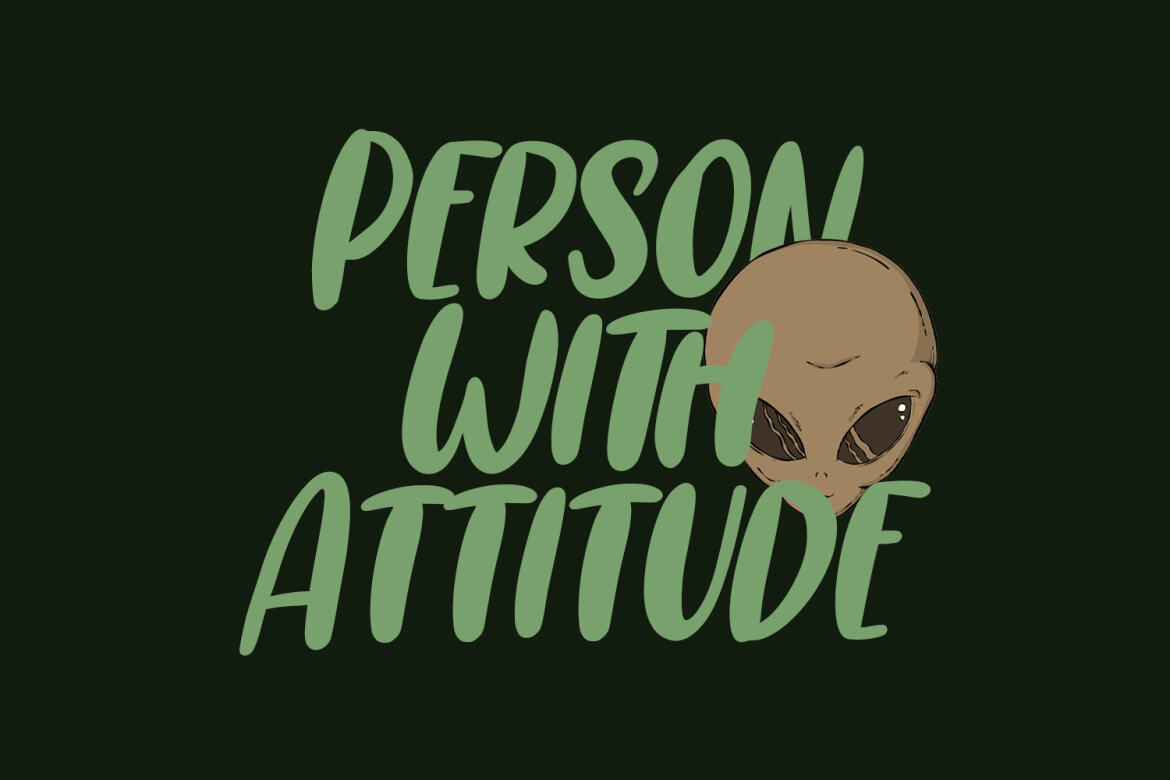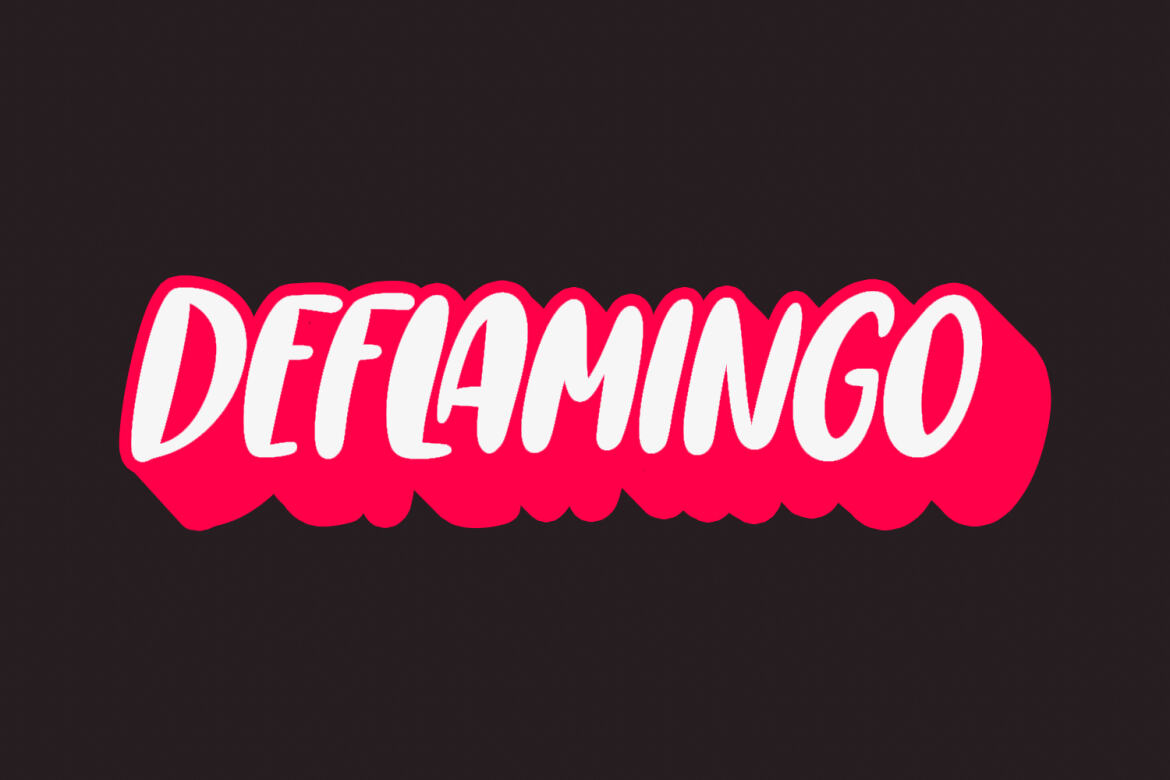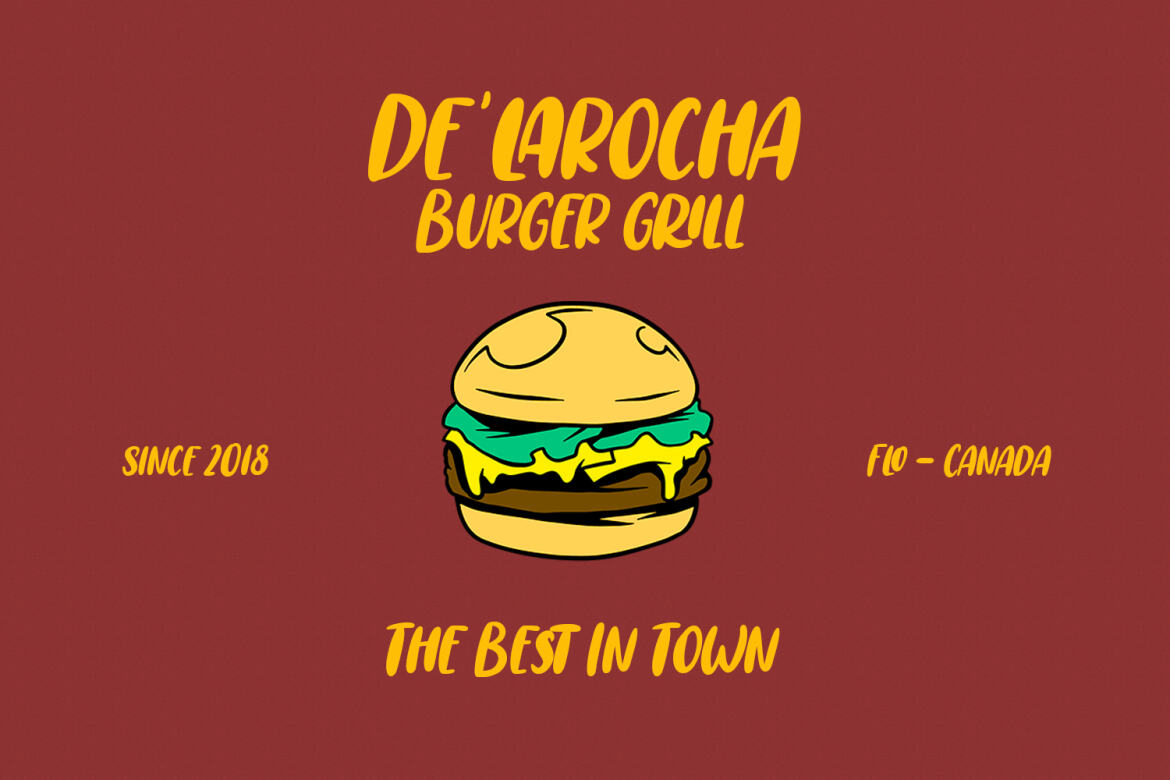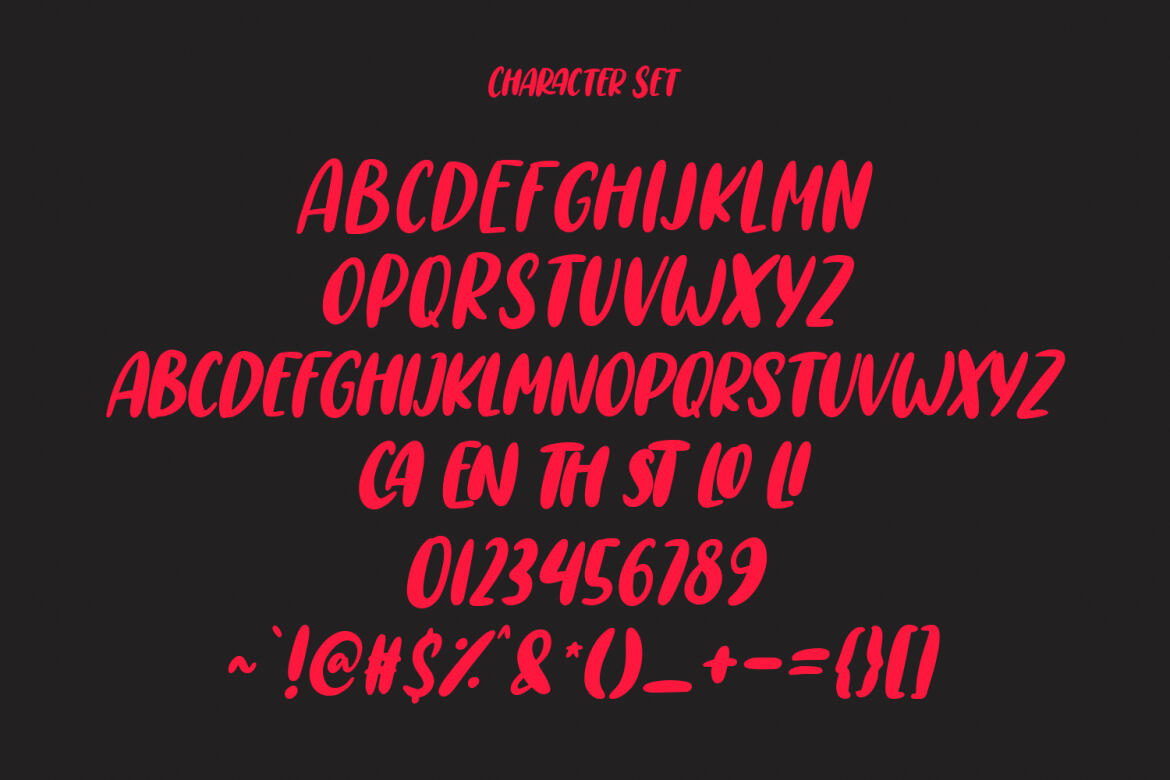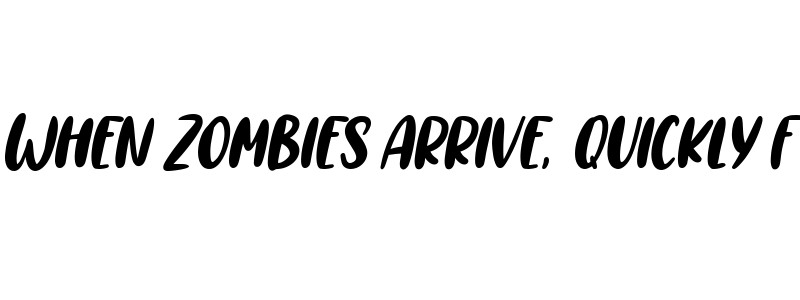
Cool Unkle Handwritten FREE Font
Cool Unkle
Cool Unkle is a handwritten display font. With bold stroke, slant and Unique Upper and lower characters with bit of ligatures. To give you an extra creative work. Cool Unkle font support multilingual more than 100+ language. This font is good for logo design, Social media, Movie Titles, Books Titles, a short text even a long text letter and good for your secondary text font with sans or serif. Make a stunning work with Cool Unkle font.